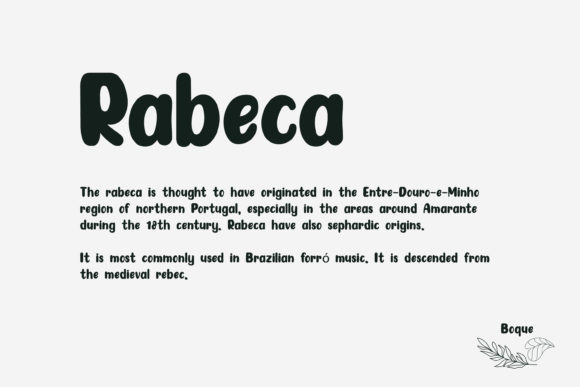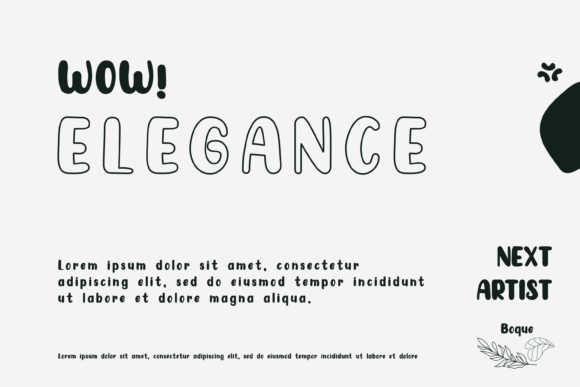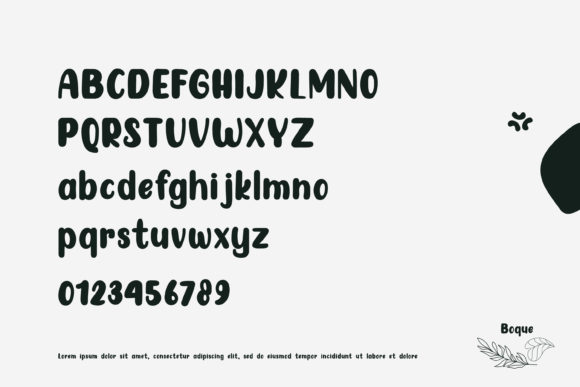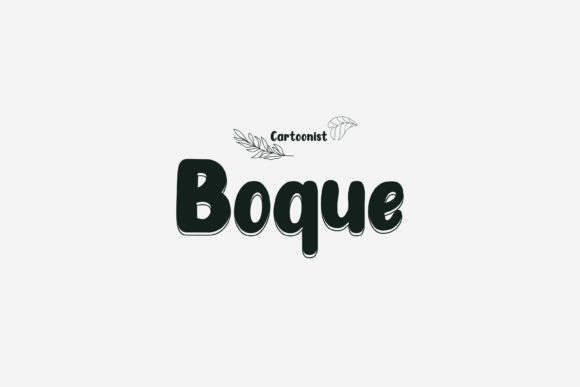
Introducing Boque Font: The Ultimate Display Font for Creative Projects
Are you tired of using the same old fonts for your creative projects? Look no further than Boque Font, a cool and fun display font that’s sure to elevate your designs to the next level. With its unique and playful style, Boque is an incredible asset to any font library, and can be used for a wide range of topics and projects.
What Makes Boque Font So Special?
Boque Font is a display font that’s designed to make a statement. Its bold and quirky style is perfect for headlines, titles, and other attention-grabbing elements. But what really sets Boque apart is its versatility. Whether you’re working on a fun and playful project, or something more serious and professional, Boque can adapt to fit your needs.
Key Features of Boque Font
- Unique and Playful Style: Boque Font has a one-of-a-kind design that’s sure to grab attention and add some personality to your projects.
- Highly Versatile: Boque can be used for a wide range of topics and projects, from fun and playful designs to more serious and professional ones.
- Easy to Read: Despite its bold and quirky style, Boque is still easy to read, even at smaller sizes.
- Perfect for Display Text: Boque is designed specifically for display text, making it perfect for headlines, titles, and other attention-grabbing elements.
- Headlines and Titles: Use Boque to create bold and attention-grabbing headlines and titles that will draw your audience in.
- Signs and Posters: Boque is perfect for creating eye-catching signs and posters that will stand out in a crowd.
- Branding and Packaging: Use Boque to add some personality to your branding and packaging, and make your products stand out on store shelves.
- Social Media Graphics: Boque is a great choice for social media graphics, where you want to grab attention and make a statement.
- Unique Style: Boque’s unique and playful style is a breath of fresh air in a world of generic and overused fonts.
- Highly Versatile: Boque can be used for a wide range of projects and topics, making it a great addition to any font library.